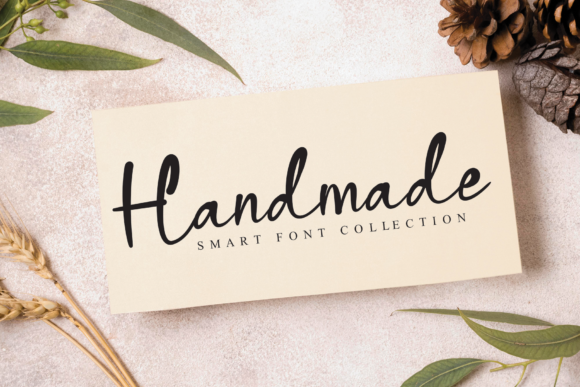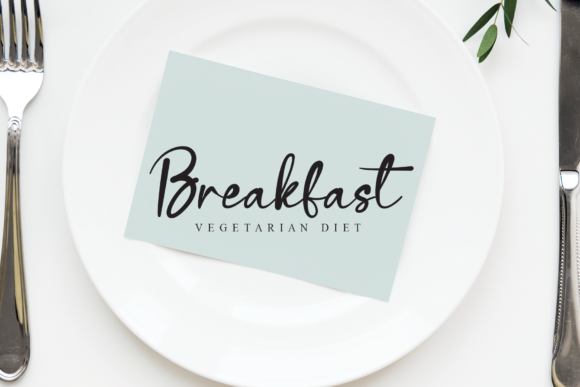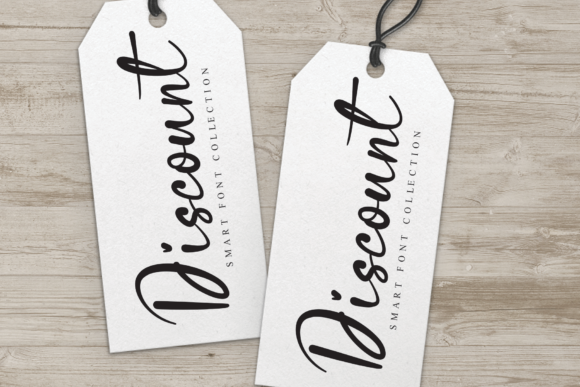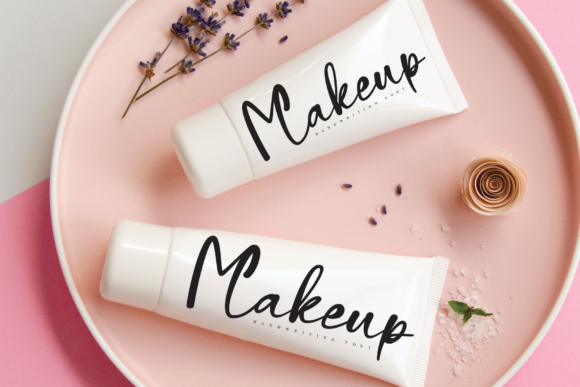
The Perfect Font for Your Masterpiece
As designers, we’ve all been there – staring at a blank canvas, trying to bring our vision to life. The cursor blinks, and our minds go blank. But what if you had the perfect tool to spark your creativity? Enter the Bountiful Font, a stunning light handwritten font that adds a touch of luxury to any design project.
Bountiful Font is more than just a font – it’s a statement piece. With its unique feel and elegant style, it elevates your designs from ordinary to extraordinary. Whether you’re creating a logo, a brochure, or a website, this font is sure to make your project stand out. And the best part? It’s incredibly versatile, making it a valuable addition to any designer’s toolkit.
Bountiful Font Key Features
- Font Family: Bountiful Font offers a range of 8 unique font styles, each with its own distinct character and feel.
- Character Set: The font includes a comprehensive character set, covering Latin, Greek, Cyrillic, and extended Latin characters.
- Font Size: The font family includes weights ranging from Light to Bold, providing flexibility for various design applications.
- Unique Characteristics: Bountiful Font features a unique blend of modern and vintage elements, making it perfect for creating a distinctive visual identity.
Bountiful Font Review
Overall, I’d say that the Bountiful Font is a solid addition to any designer’s toolkit. ✨ It’s got a clean and elegant feel that works well for a variety of applications, from body text to headlines.
One of the standout features of the Bountiful Font is its high x-height, which makes it easy to read even at smaller font sizes. ✨ The font also has a nice range of weights, from light to bold, which gives designers a lot of flexibility when it comes to creating visually appealing typography.
- High x-height for easy readability
- Nice range of weights for flexible typography
- Clean and elegant feel
- May not be the best choice for display-heavy designs, as it can look a bit generic
- Some users have reported issues with font rendering at very small sizes
- Not particularly unique or distinctive, which may make it harder to stand out in a crowded design landscape
- ⚠️ Limited language support
Overall, I think the Bountiful Font is a reliable choice for designers who want a clean and easy-to-read font that won’t distract from the rest of their design. However, it may not be the best fit for designers who are looking for something truly unique or eye-catching.
Tips for Getting the Most Out of Bountiful Font
Use Bountiful Font for titles and headings to add a touch of elegance to your design.
Pair Bountiful Font with other elegant fonts to create a sophisticated look.
Bountiful Font is ideal for:
Corporate branding and marketing materials
Designing elegant posters and flyers